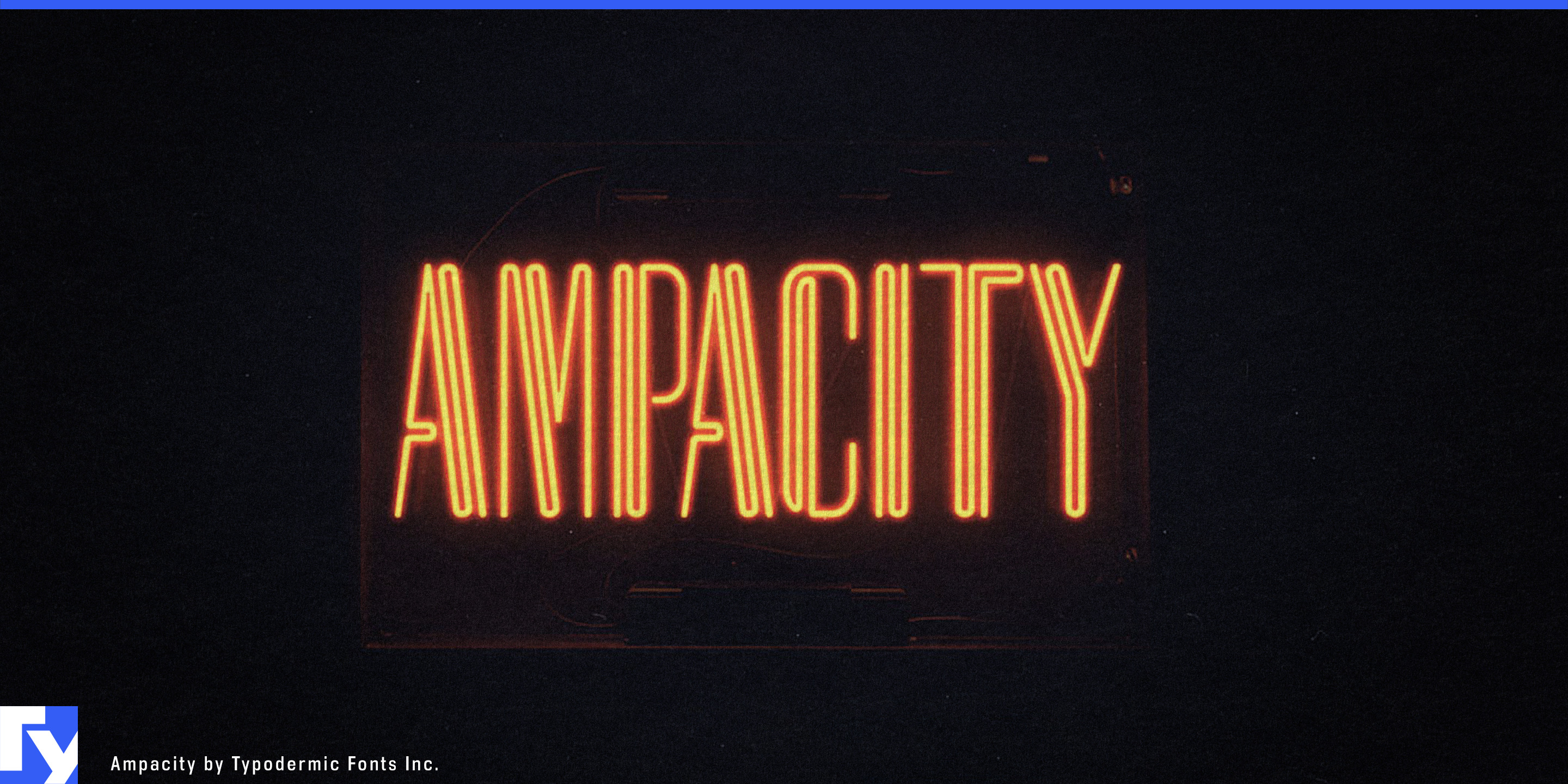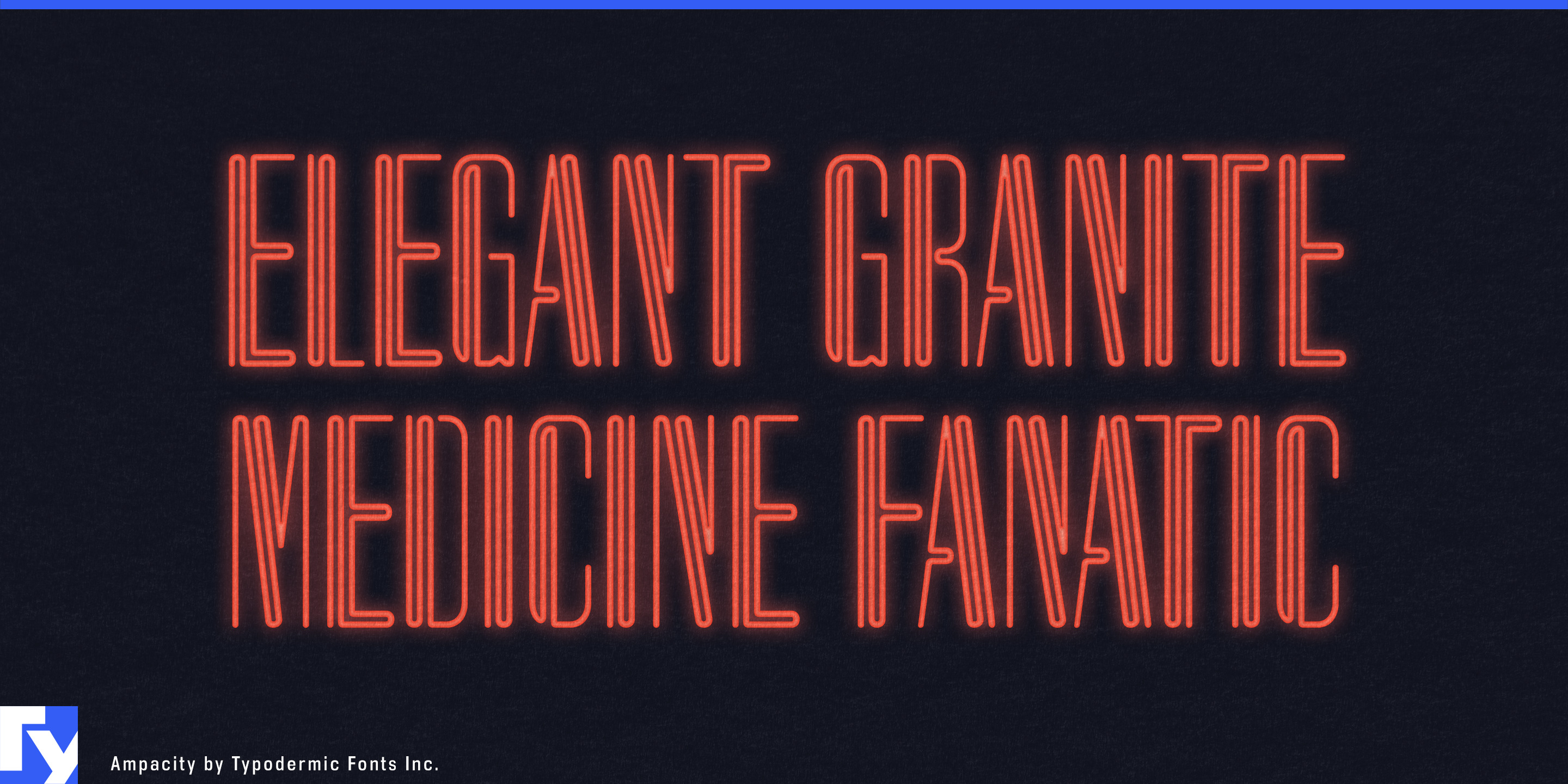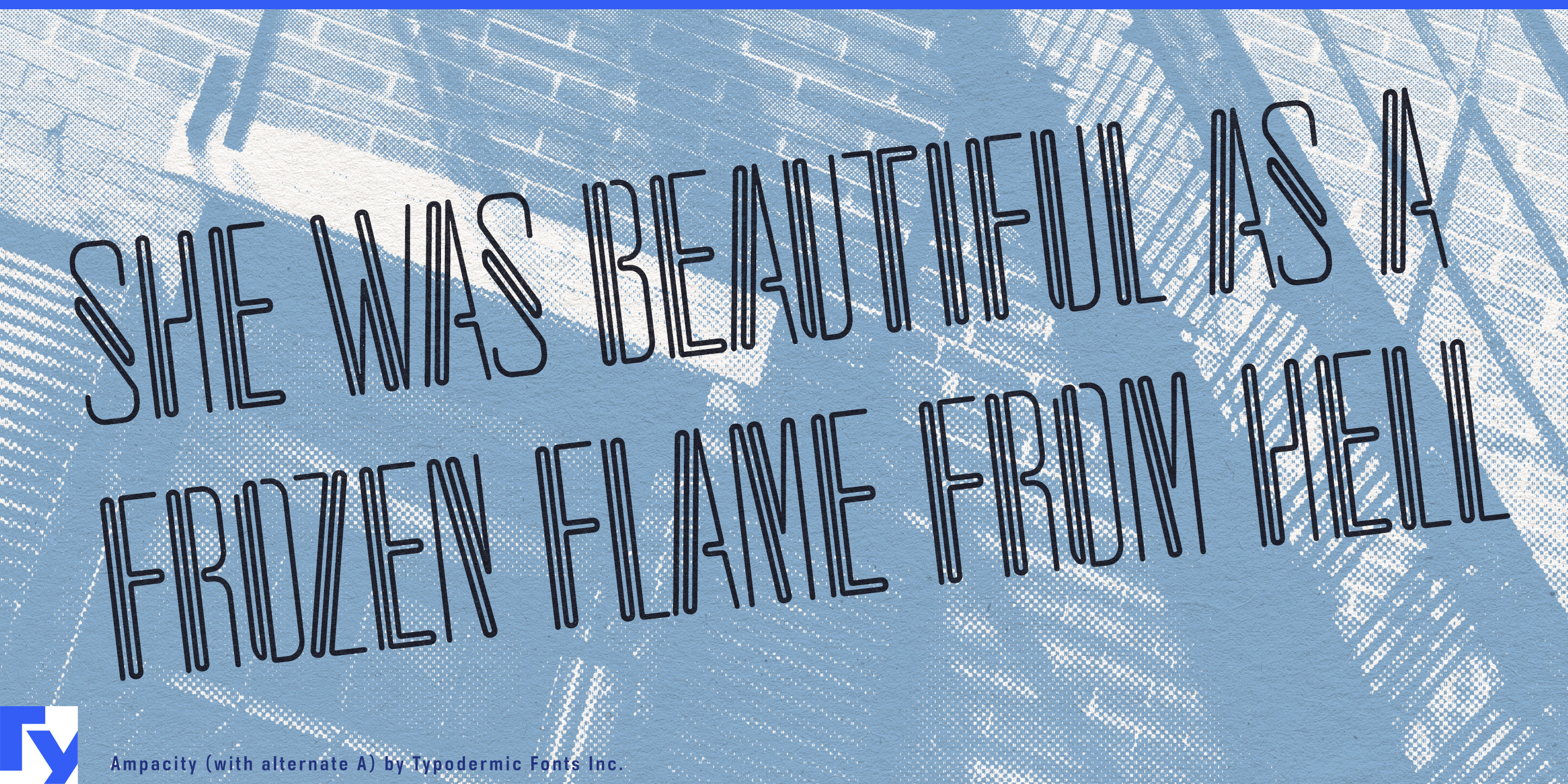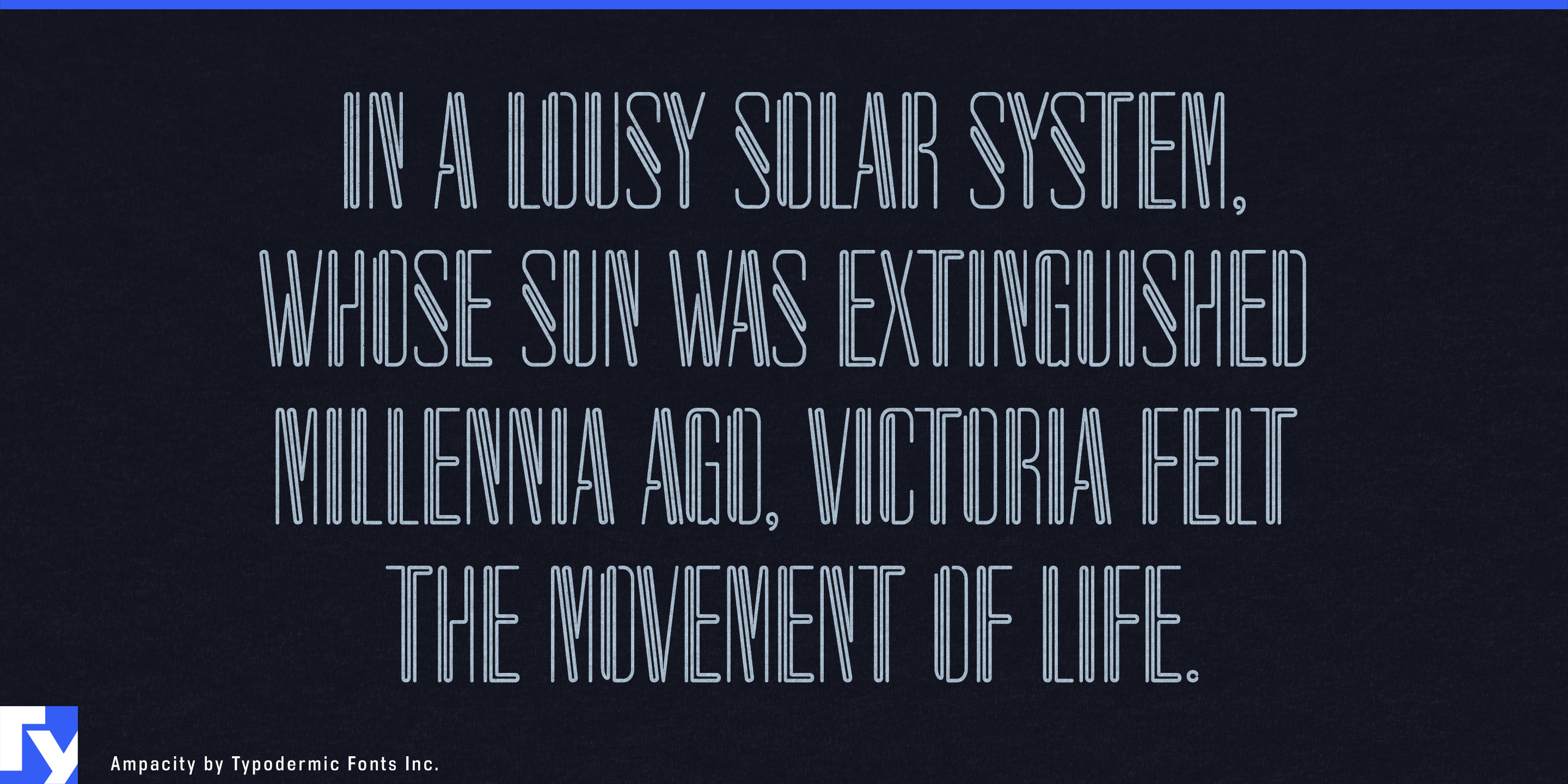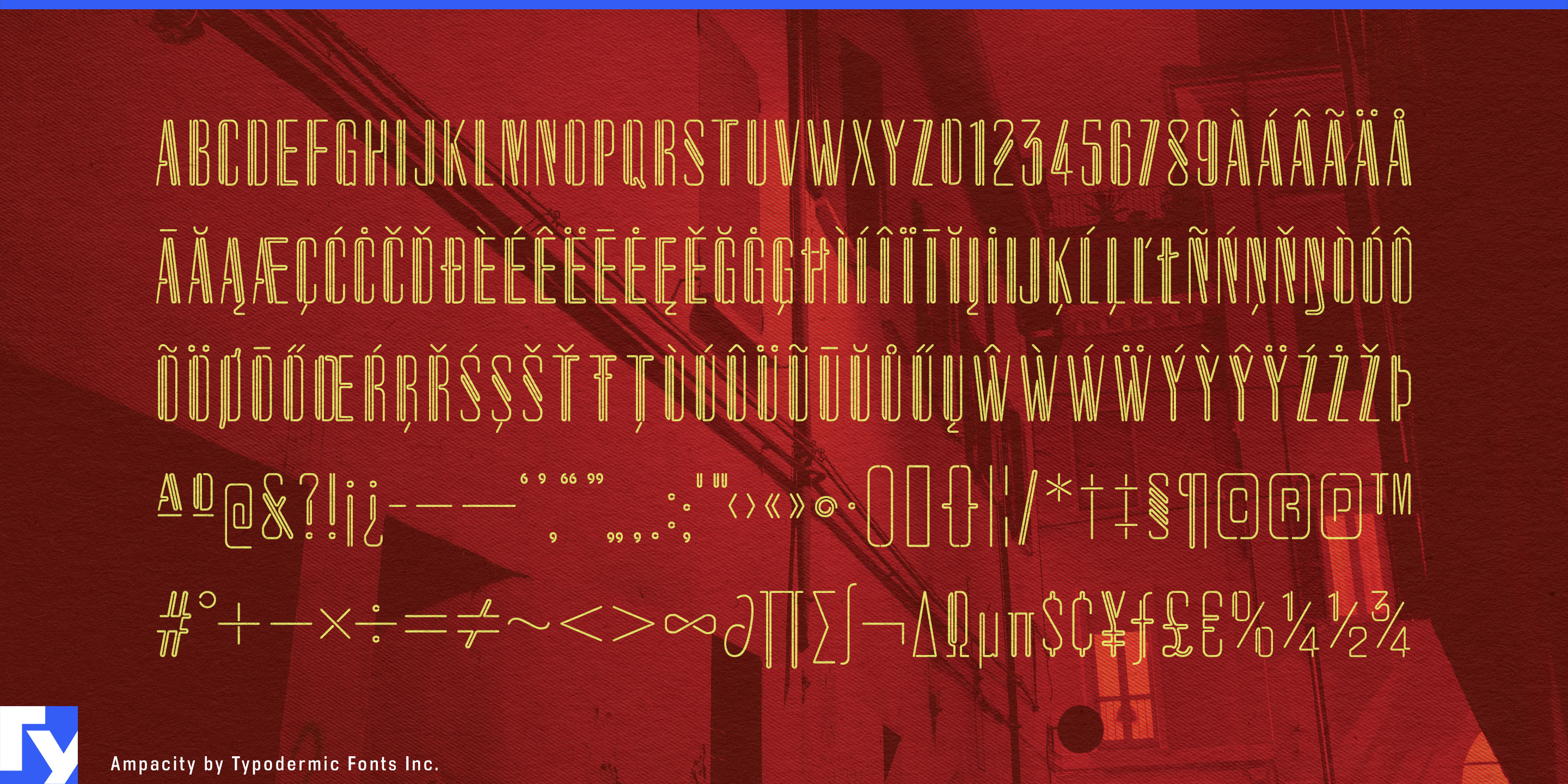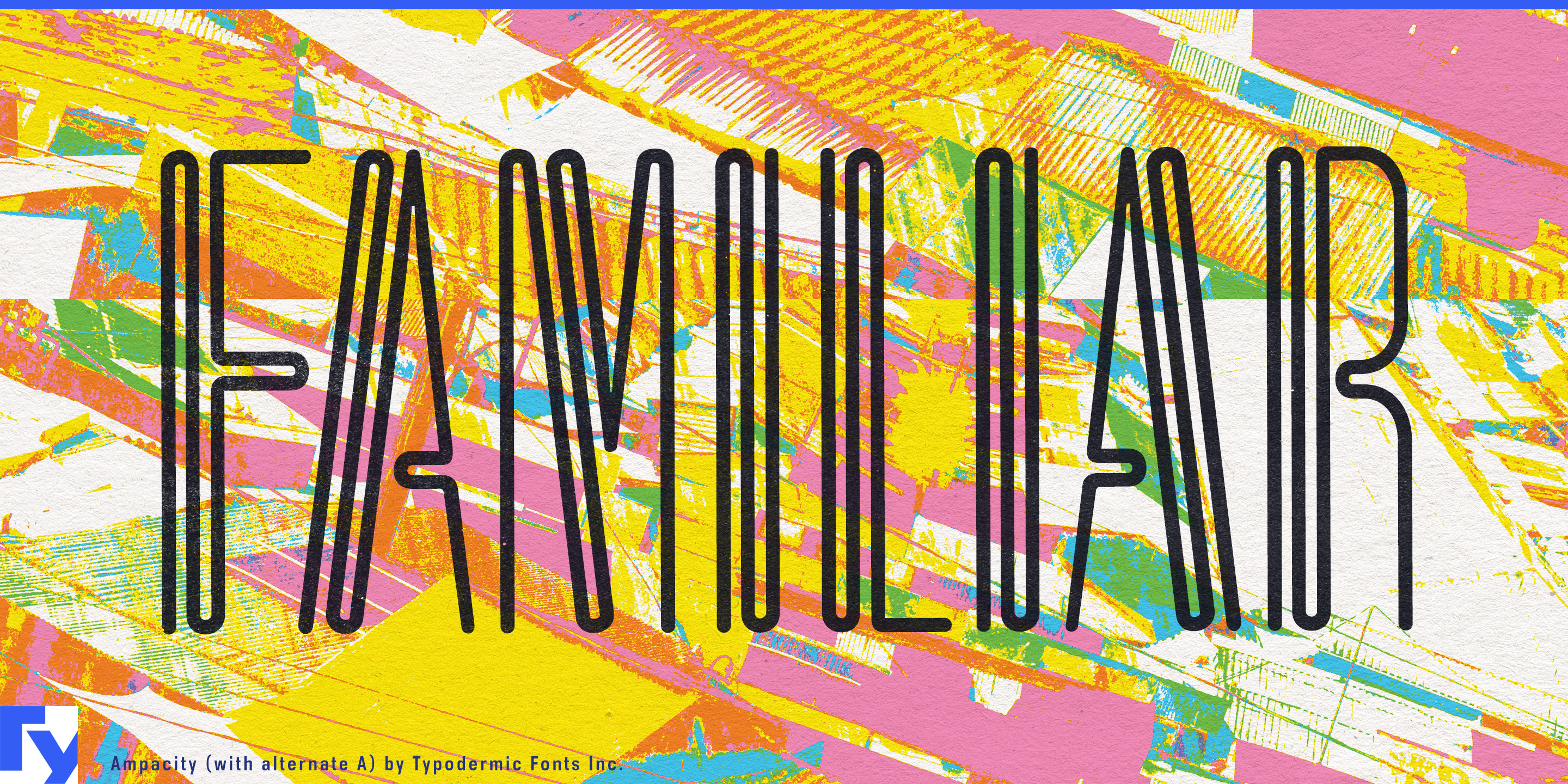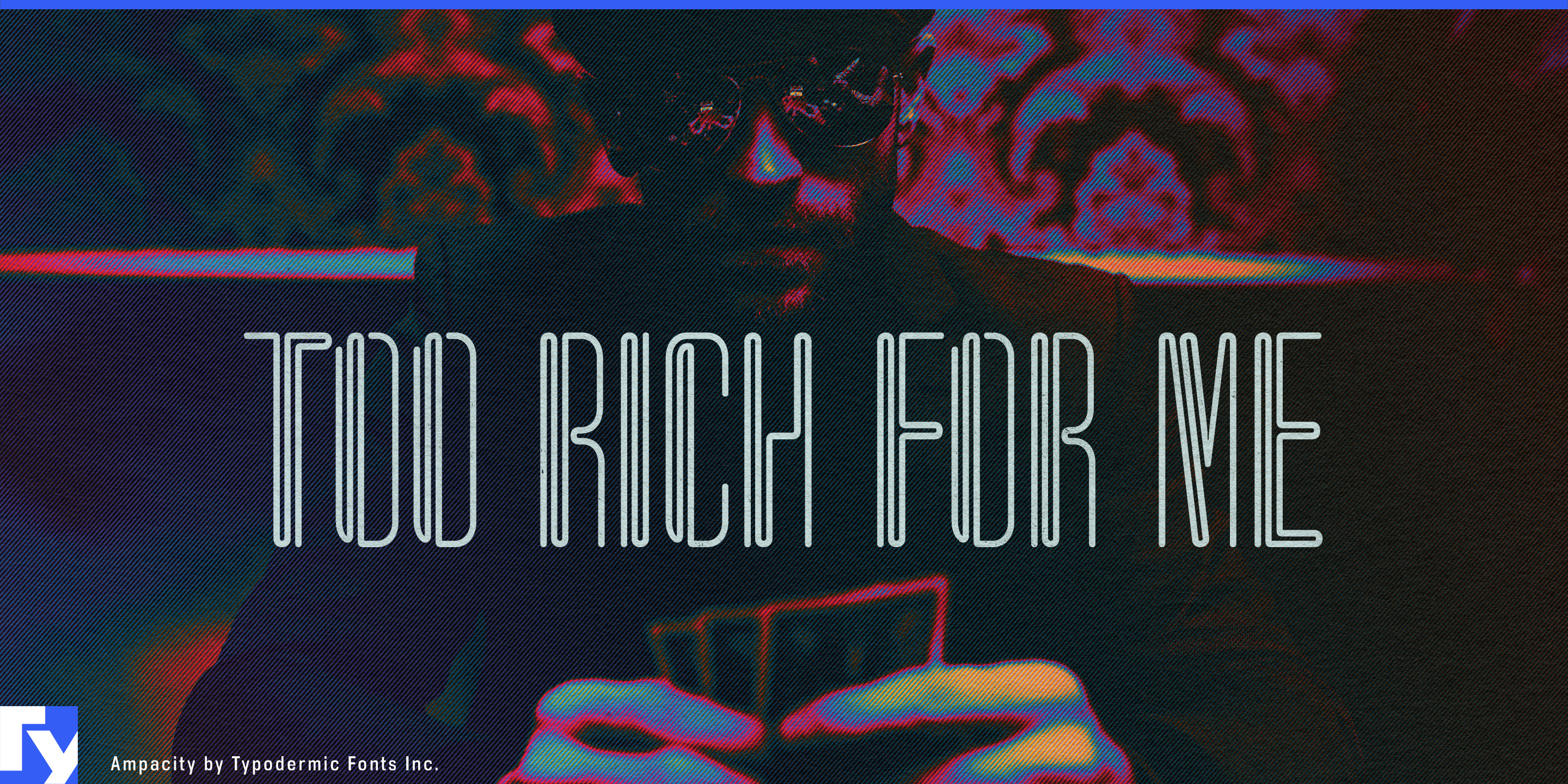
Ampacity
Ampacity is a tall, condensed headline typeface with the clean precision of modern design and just enough retro neon swagger to make it unforgettable. Its slender strokes echo the bends and flows of glass tubing, but without the clutter or kitsch of typical neon fonts. The result is a versatile display face that fits just as comfortably on a high-fashion editorial spread as it does on a gritty gig poster.
Originally inspired by the neon-style lettering on Led Zeppelin’s Coda album cover, Ampacity includes a mirrored “A” for designers who want that exact look, plus the standard form for everyday use. Its condensed proportions make it ideal when space is tight but impact is essential.
Ampacity supports a wide range of Latin-based languages, from Icelandic to Vietnamese, ensuring your message shines wherever it’s seen. Whether you’re crafting a festival poster, an album sleeve, or a headline that demands attention, Ampacity delivers a sleek, electric presence—no plug required.